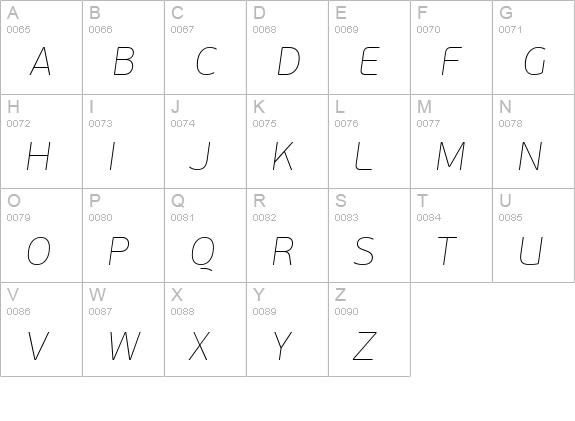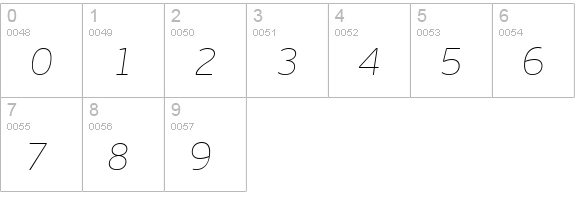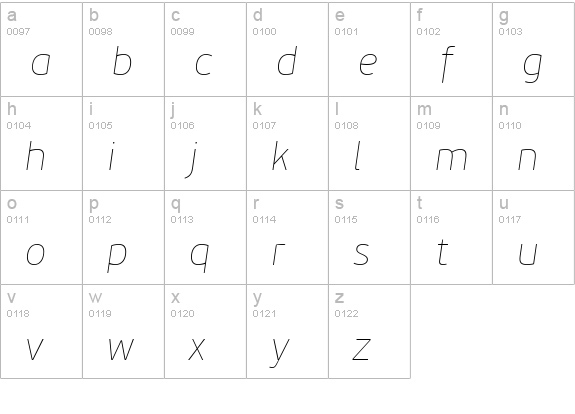
PFBeauSansPro-XThinItalic Font Details
PFBeauSansPro-XThinItalic is a sleek and elegant typeface that exudes sophistication and modernity. With its delicate and thin strokes, this italic font adds a touch of finesse to any design project. The graceful slant of the letters gives a sense of movement and fluidity, making it perfect for conveying a sense of elegance and style. The PFBeauSansPro-XThinItalic font is versatile and can be used for a variety of purposes, from branding and advertising to editorial design and web content. Its clean and crisp appearance makes it easy to read, while the italic style adds a touch of flair and creativity. Whether you're designing a logo, creating a poster, or crafting a website, this font is sure to make a statement. Best of all, PFBeauSansPro-XThinItalic is available for free download at FontsMarket.com. This means that you can easily access this gorgeous typeface and use it in your projects without any cost. Don't miss out on the opportunity to enhance your designs with the beauty and elegance of PFBeauSansPro-XThinItalic – download it today and elevate your creative work to the next level.